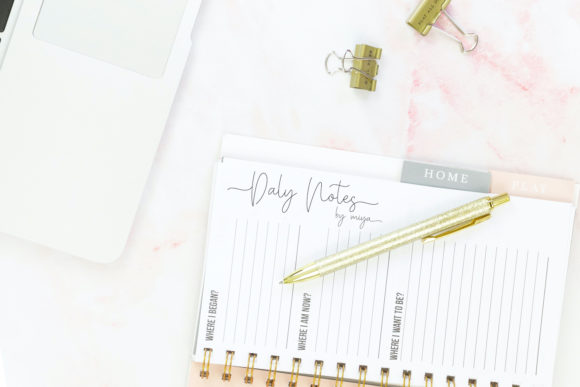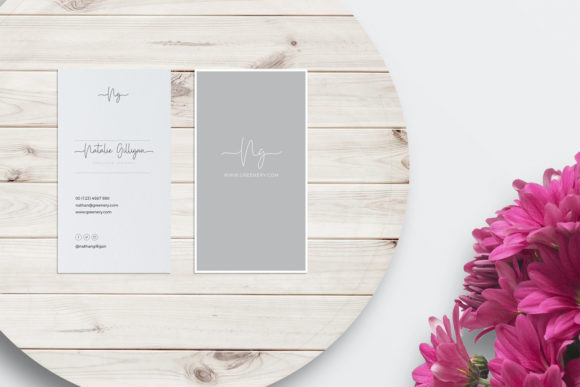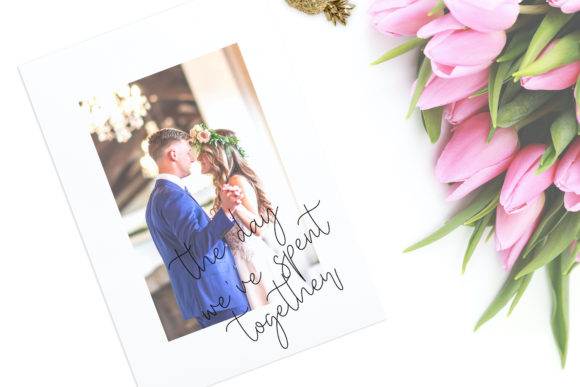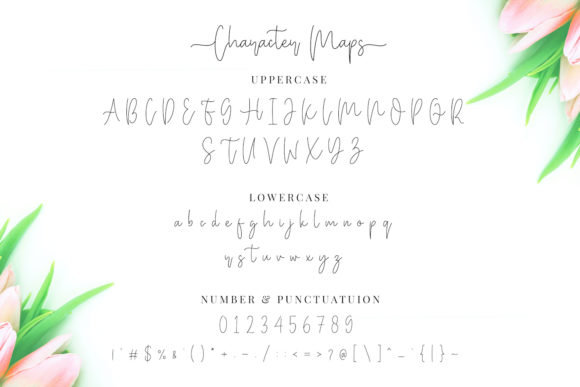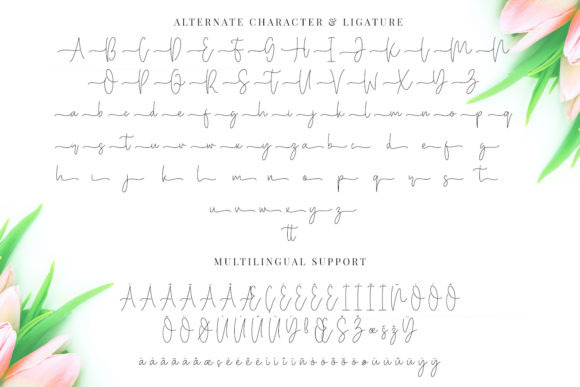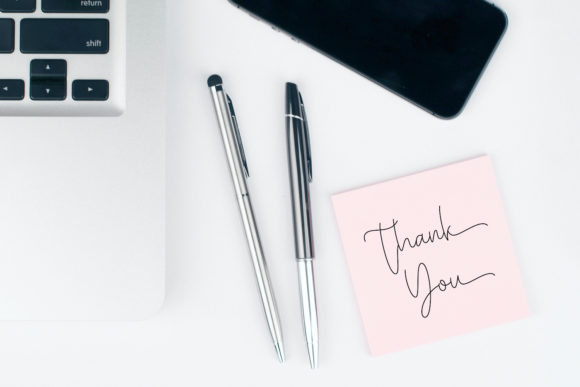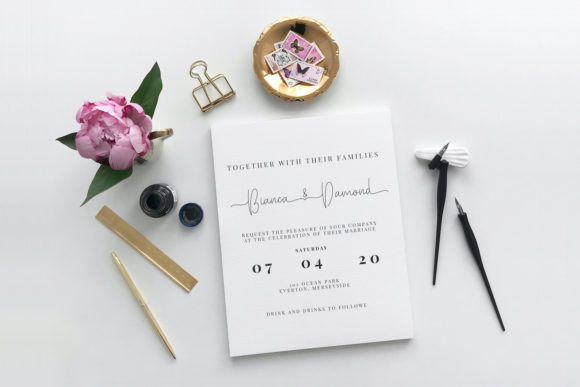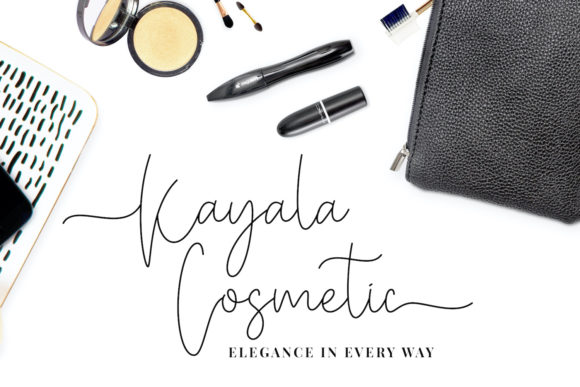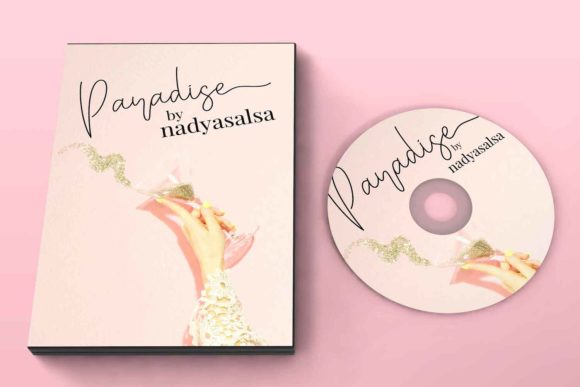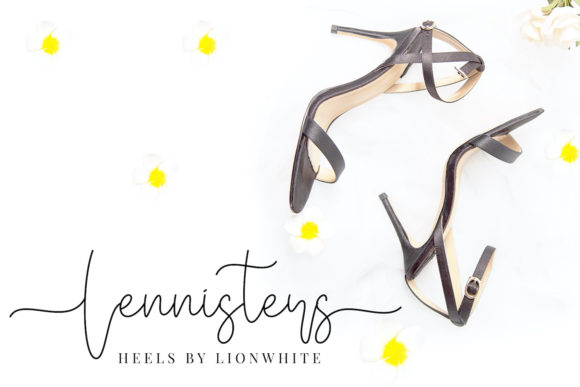
Miya Wayne Font
About Miya Wayne Font
Miya Wayne simplifies elegance into one truly outstanding handwritten font. It maintains its classy calligraphic influences while feeling contemporary and fresh.